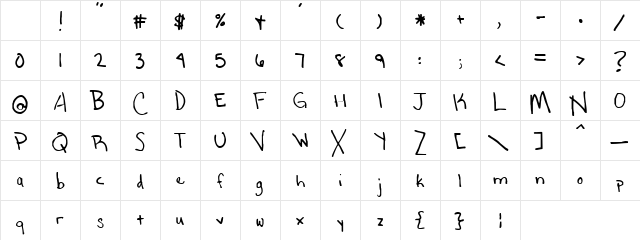
Justen flows with the natural rhythm of handwritten lettering, making it ideal for designs that call for warmth and personal expression.
Font Pairing: Combine Justen with a simple geometric sans for maximum contrast - the tension between flowing curves and clean structure is a classic typographic pairing.
Pro Tip: Use Justen for short runs of text - names, titles, or taglines. Extended body copy in script faces tires the eye quickly.